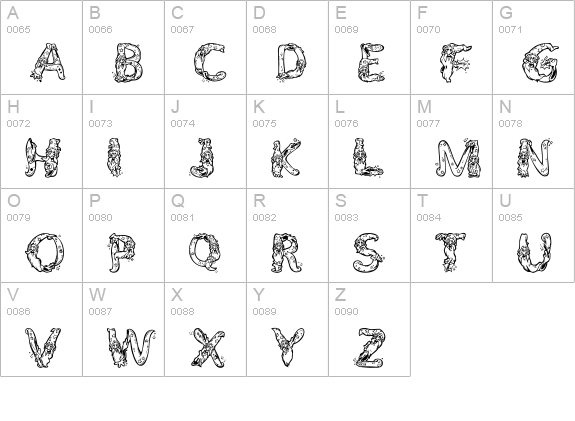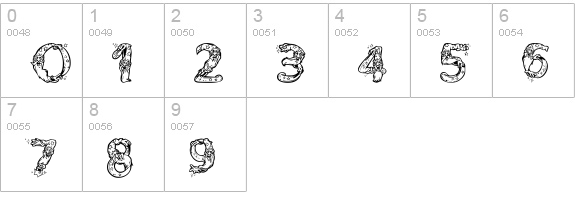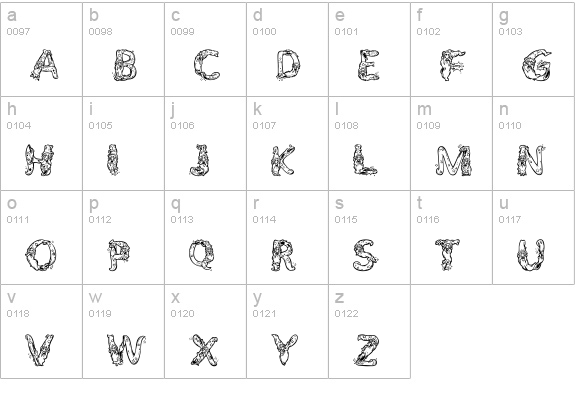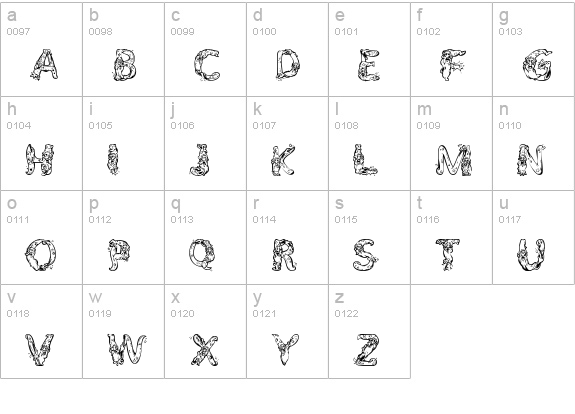
AlphaWizard Font Details
Introducing AlphaWizard font, a captivating and enchanting typeface that will transport your designs to a realm of magic and wonder. This mystical font features intricate details and spellbinding curves that evoke a sense of mysticism and intrigue. With its elegant and whimsical aesthetic, AlphaWizard font is perfect for adding a touch of magic to your projects, whether you're creating invitations, posters, logos, or branding materials. The best part? AlphaWizard font is available for free download at FontsMarket.com, allowing you to unleash your creativity without any cost. Embrace the power of AlphaWizard font and infuse your designs with a touch of enchantment today.